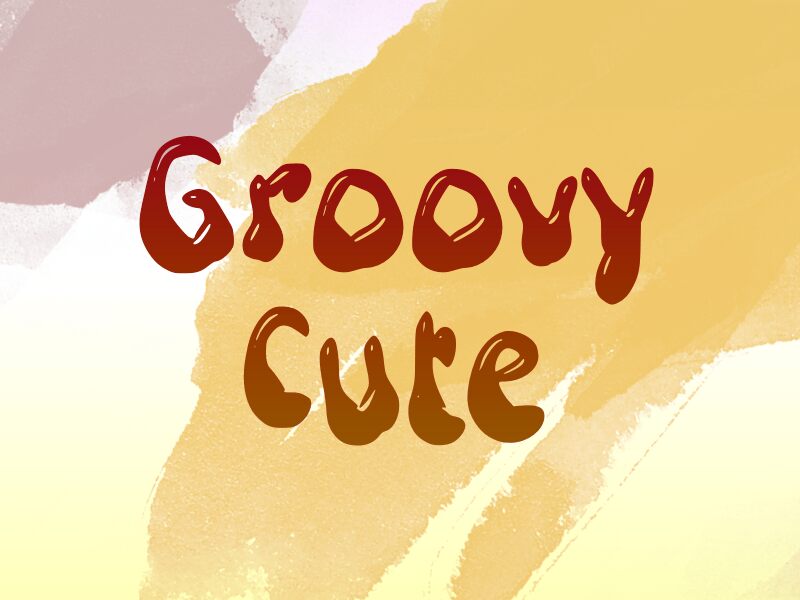
Groovy Cute
Exuding a playful and energetic vibe, Groovy Cute is a display font that captivates with its distinctive, rounded letterforms and bold strokes. Designed by wep, this font effortlessly blends retro charm and modern flair, creating a visually engaging aesthetic that instantly commands attention. The font's bold weight and expressive curves lend an air of confidence and dynamism, making it an ideal choice for a wide range of design projects.
Groovy Cute's versatility shines through, making it a versatile choice for headlines, logos, branding materials, and even product packaging. Its bold, eye-catching presence makes it an excellent fit for attention-grabbing designs, while its whimsical charm can also be leveraged to create playful, memorable designs in the realms of children's products, event promotions, and more.